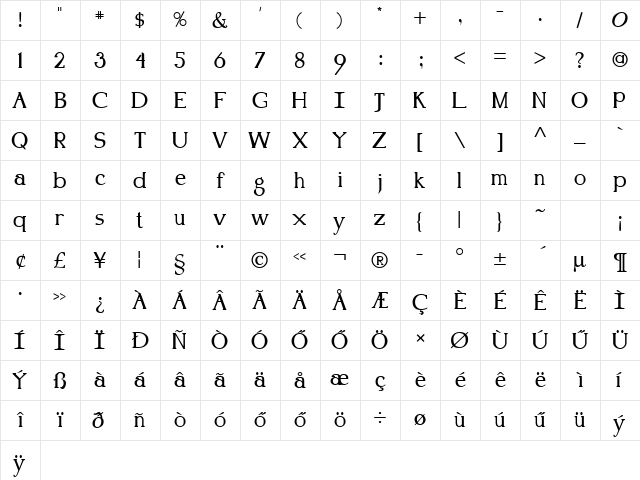
H_Kennon Plain Regular
H_Kennon Plain Family
Design Context for H_Kennon Plain
H_Kennon Plain is a composed and adaptable typeface that performs quietly and consistently across a wide range of design contexts.
Pro Tip: Use H_Kennon Plain in both headline and body roles to test its range before committing to a single application.